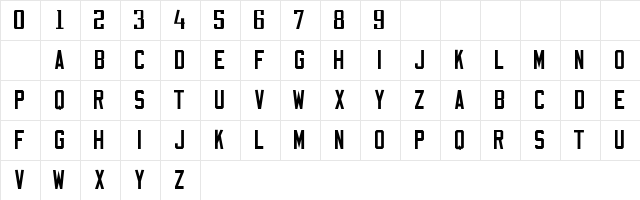
NFL Titans Regular Free Font
NFL Titans Regular
Design Context for NFL Titans
NFL Titans is a composed and adaptable typeface that performs quietly and consistently across a wide range of design contexts.
Pro Tip: Use NFL Titans in both headline and body roles to test its range before committing to a single application.